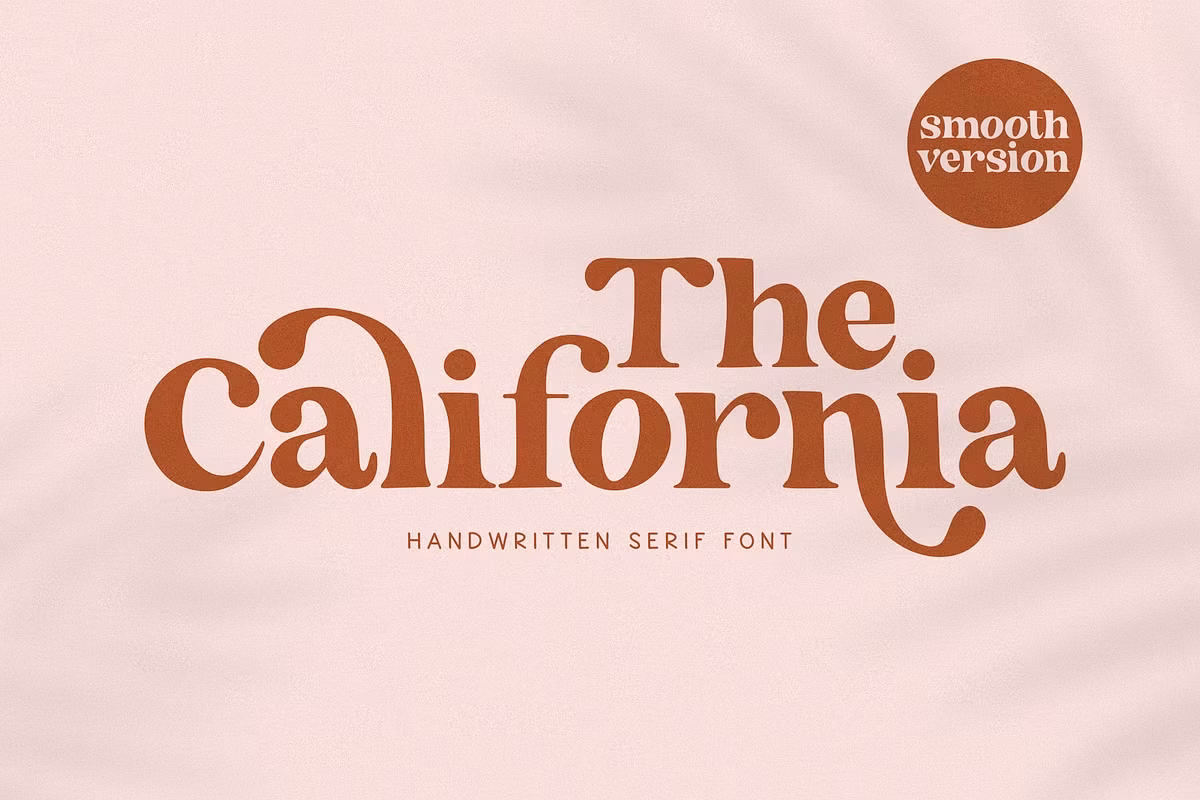
The California | Modern Serif Font Free Download
The California | Modern Serif Font Free Download is a sleek and stylish typeface that blends classic serif structure with contemporary flair. Perfect for branding, editorial layouts, fashion projects, and luxury packaging, this font brings a clean and elegant aesthetic to any design. Please note that you must purchase this font for commercial use, but it is available as a free download for testing purposes. Make a bold yet refined statement in your next project with The California | Modern Serif Font Free Download, and experience the perfect mix of tradition and modernity.